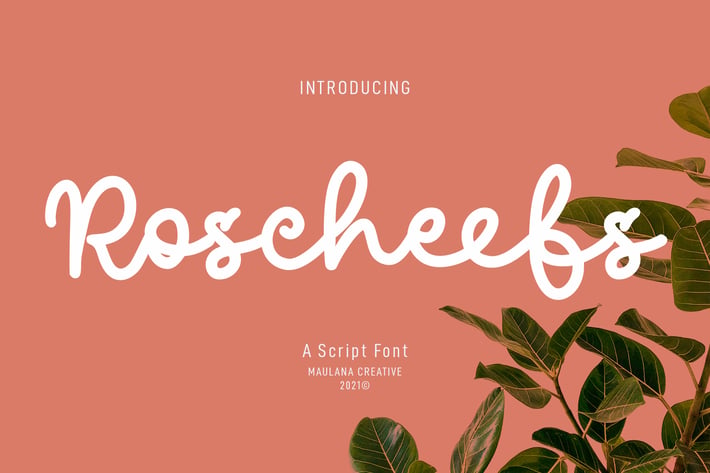
Roscheefs Script Font
Roscheefs is a classic mono-line script font. With bold stroke, upright and fun character with a bit of ligatures. To give you an extra creative work. Roscheefs font support multilingual more than 100+ language. This font is good for logo design, Social media, Movie Titles, Books Titles, a short text even a long text letter and good for your secondary text font with sans or serif. Make a stunning work with Roscheefs font.